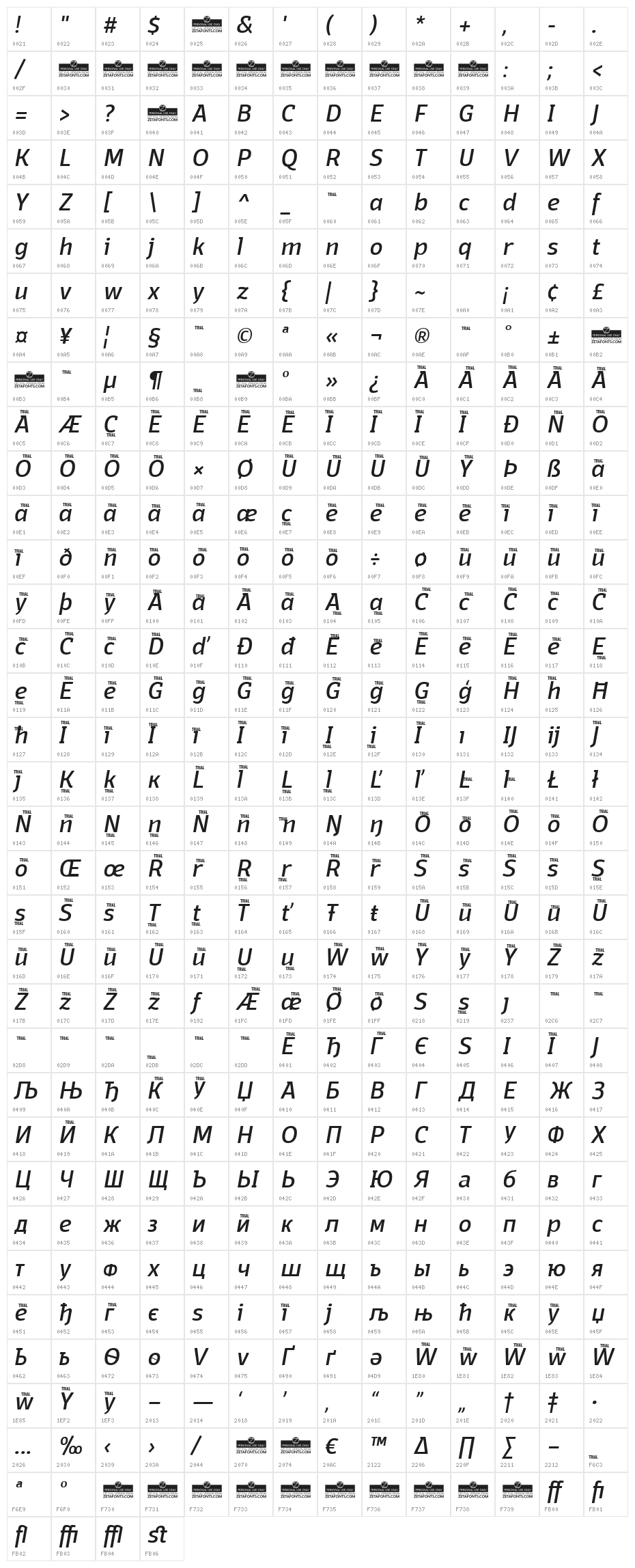
Domotika Trial Italic Font
Domotika Trial Italic Description
This font features a sleek and modern italic style, characterized by its clean lines and slightly slanted characters. The uppercase and lowercase letters maintain a consistent stroke width, providing a harmonious appearance. The numerals and special characters are designed to complement the alphabet, ensuring readability and aesthetic appeal. The overall design is contemporary, making it suitable for various digital and print applications. Its italic nature adds a dynamic and elegant touch, perfect for projects that require a sophisticated yet approachable look.
| Proposed Projects | Ideal for branding, editorial design, digital interfaces, and advertising campaigns. |